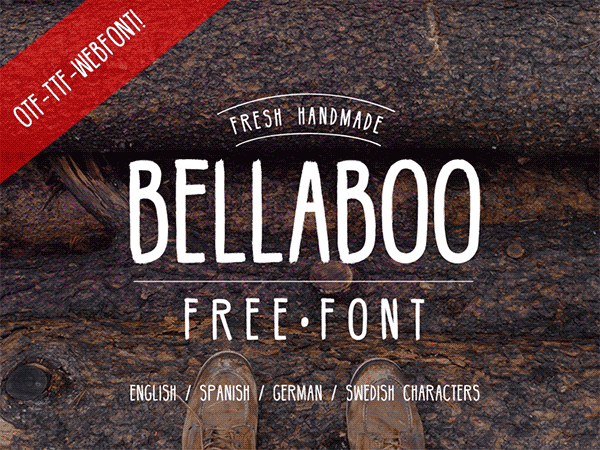
The really nice handmade font by Marcelo Reis Melo: BellaBoo. BellaBoo is an allcaps font perfect for
any kind of project the type also contain English, Spanish, German and Swedish characters.